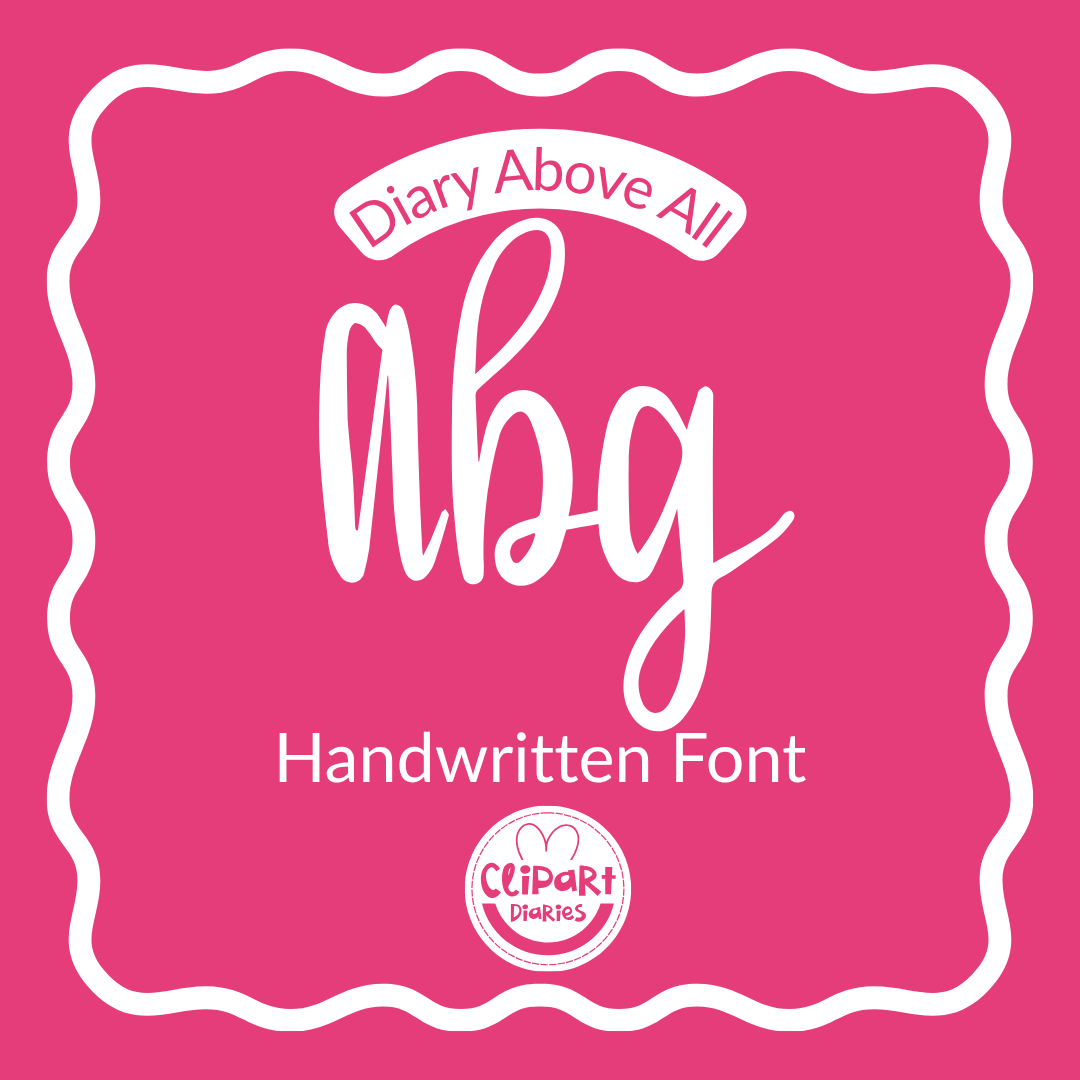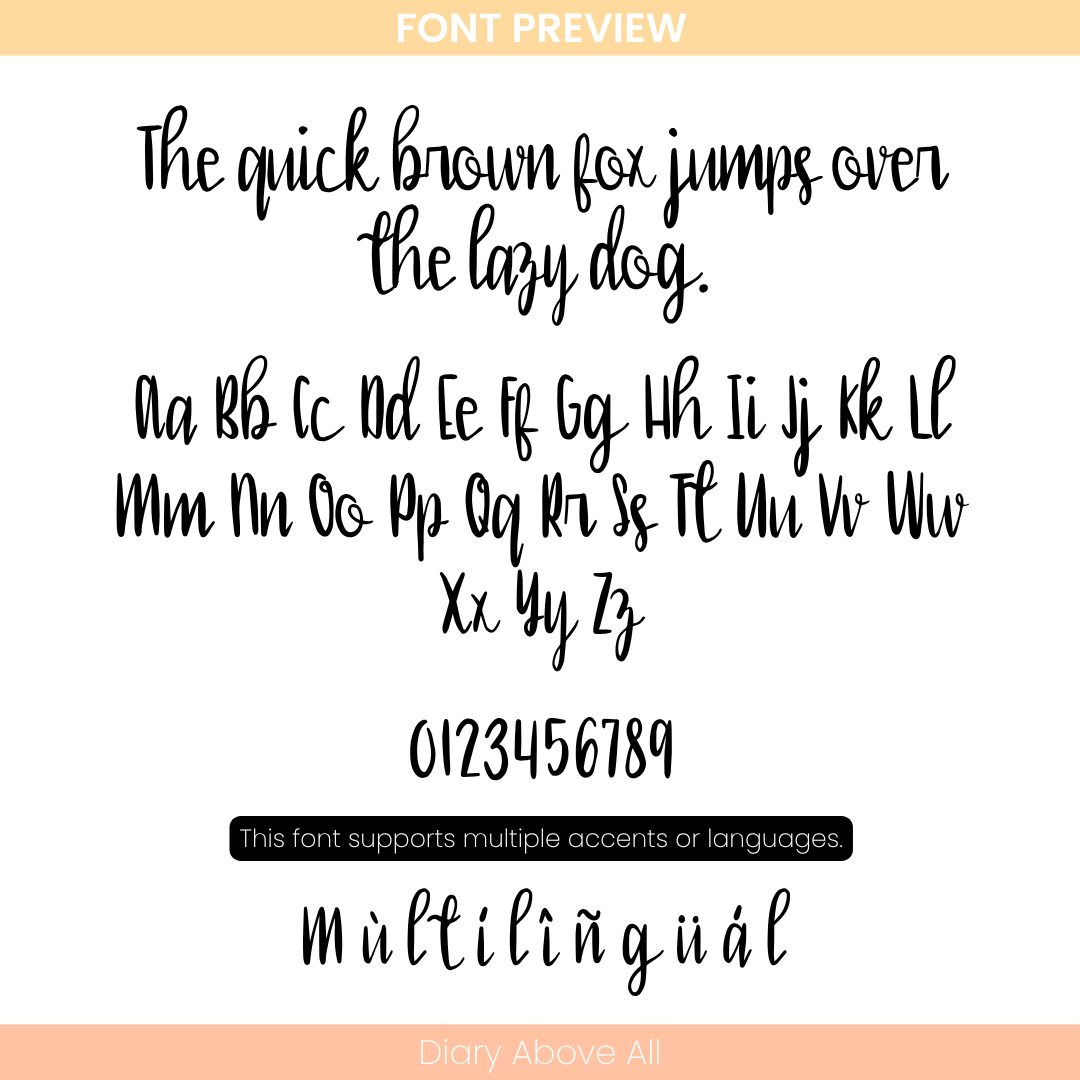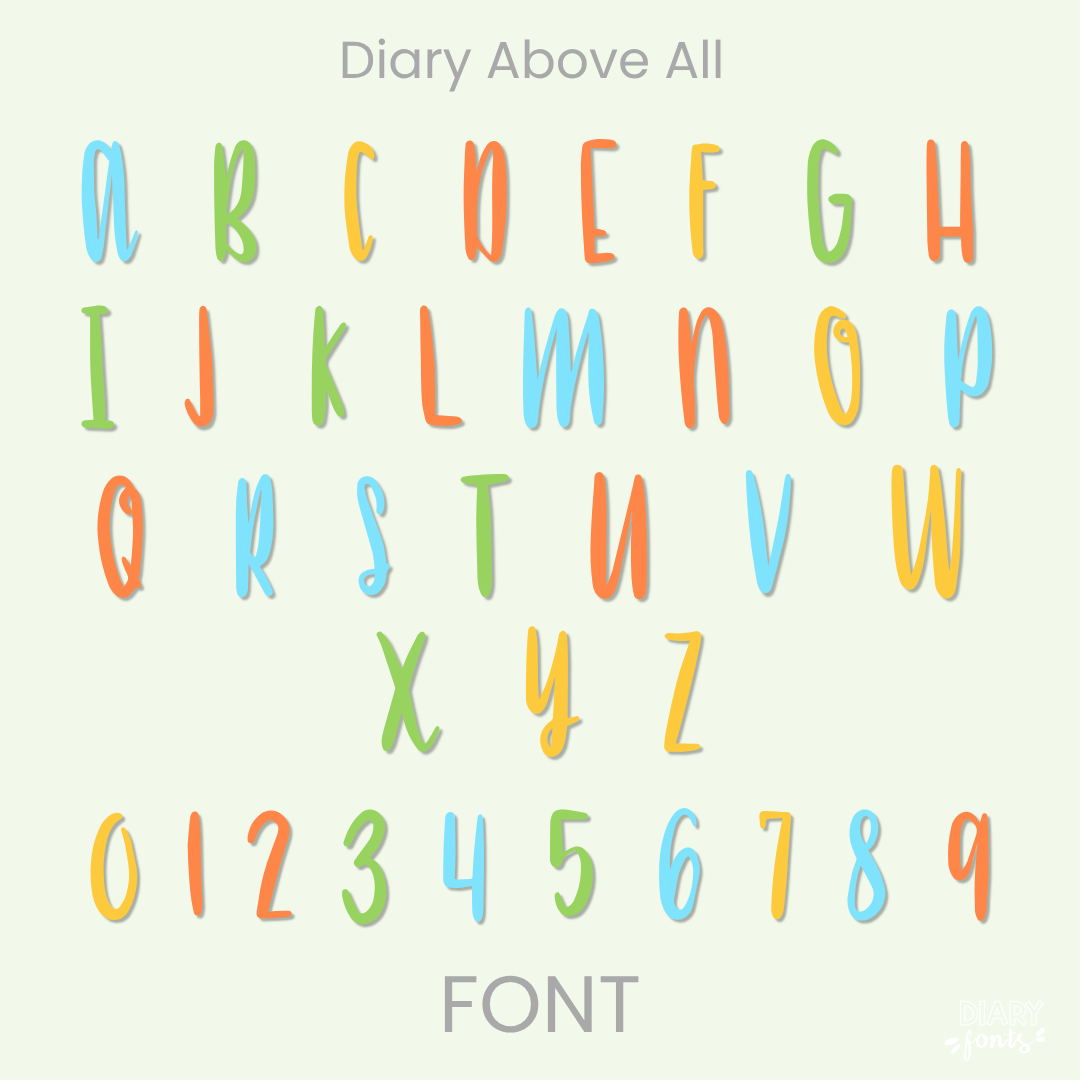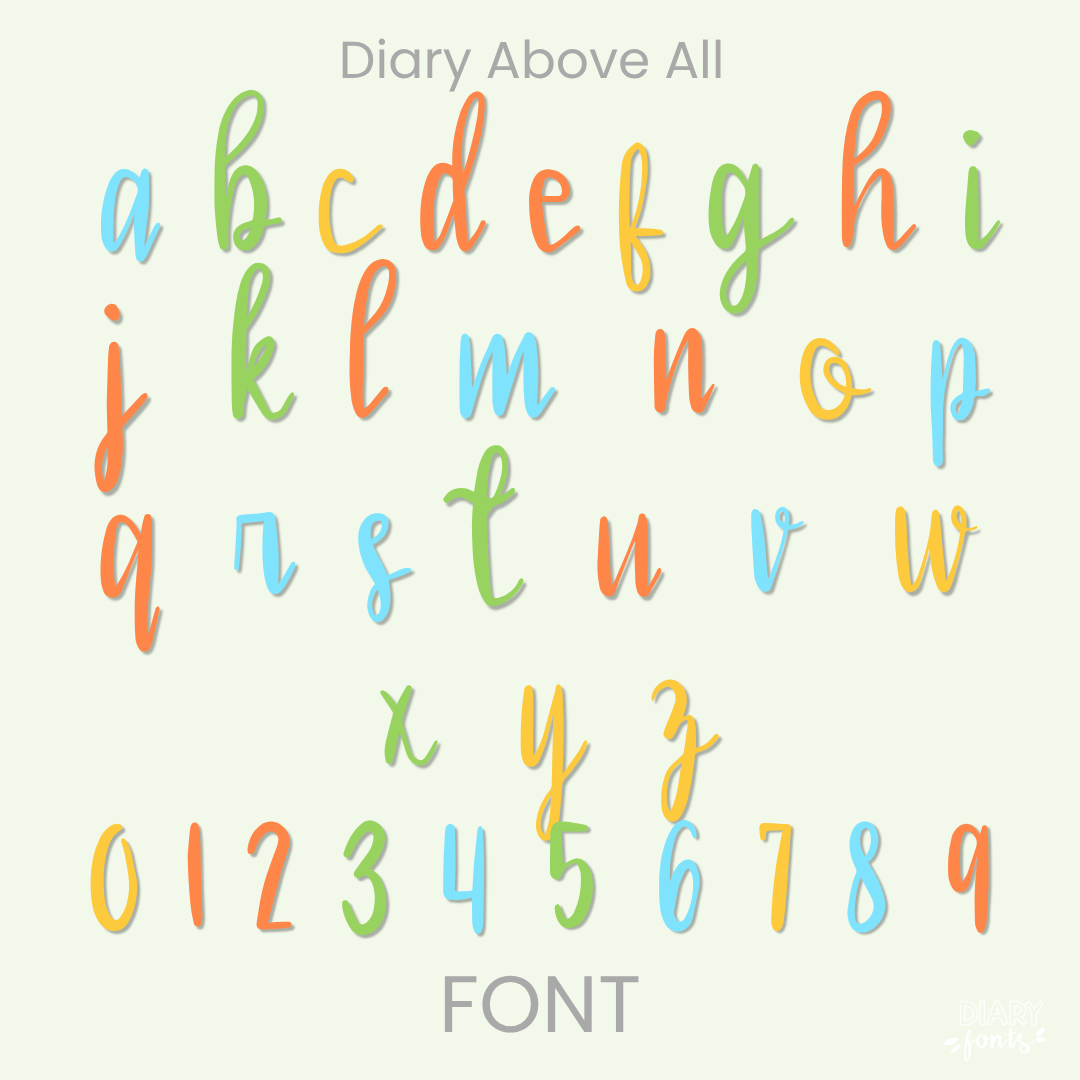
Diary Above All – Handwritten Font
This font has a calligraphic look with an organic feel. It’s handwritten and will surely add an artistic touch to your projects.